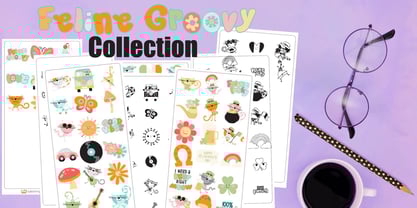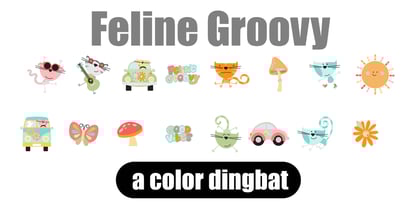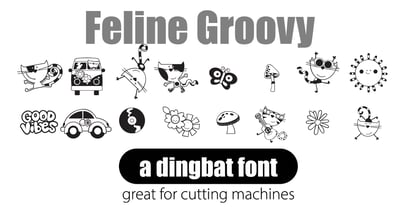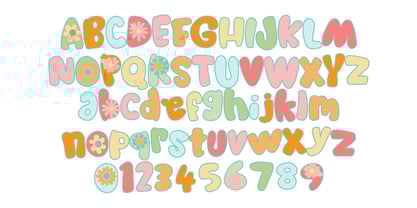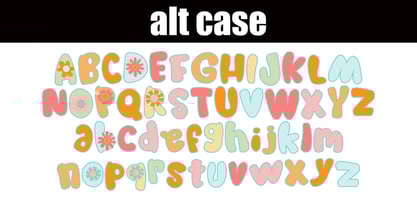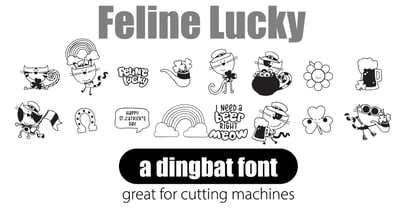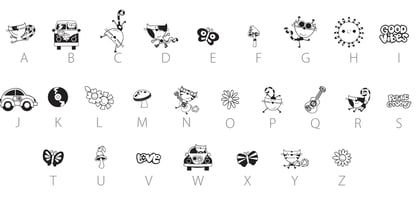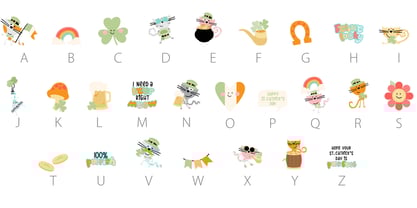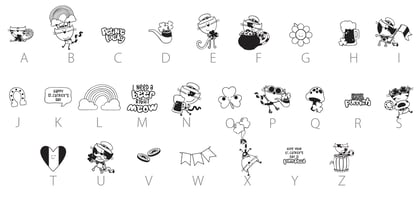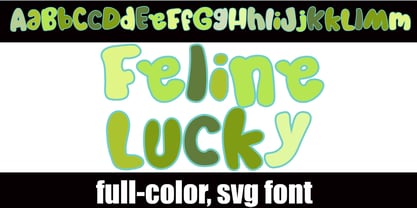
Feline
by Illustration Ink
The Feline Font Family was designed by Illustration Ink and published by Illustration Ink. Feline contains 6 styles and family package options. More about this family
Feline Groovy! This font bundle features the most silly, adorable cats getting groovy and lucky. This bundle has a regular font, 3 full-color fonts, with an alt case of additional colors of each letter that you can access through your system's glyph map, 2 full-color dingbats, and 2 regular dingbats.
Full-color SVG fonts are the perfect way to add a touch of personality to your designs. With a full range of colors and styles to choose from, you can create anything from simple text logos to complex illustrations. Plus, SVG fonts are vector-based, so they can be scaled to any size without losing quality.